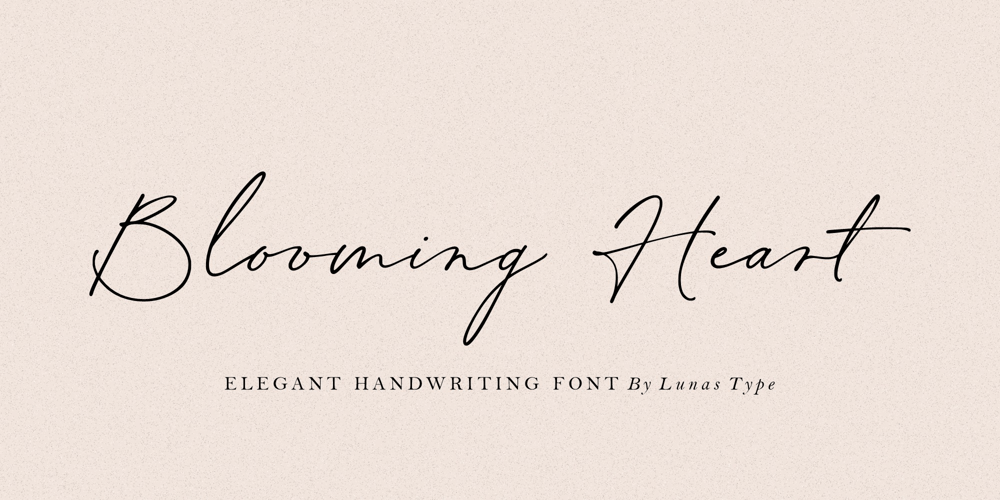
Blooming Heart Font Family was designed by Annas Alam Yahya and published by Lunas Type. Blooming Heart contains 1 styles and family package options. Introducing, Blooming Heart!Blooming Heart has a natural expression, with a charming and elegant impression. A modern and luxurious handwritten font comes with handwritten swashes and ligatures.Blooming Heart brings a charm feeling, clean style and timeless to your design such as wedding, stationery, logos, social media quotes, branding identity, and many more.